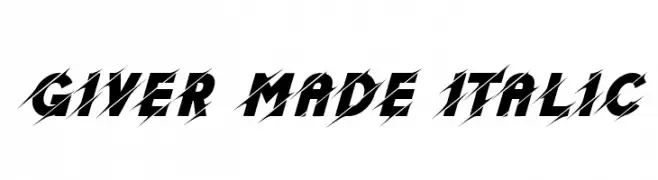
A playful, bubble-like font with a hand-drawn, 1980s-inspired style.
A modern, decorative font with elongated, narrow letterforms and a unique geometric style.
A bold, Gothic-inspired blackletter font with intricate details and a medieval aesthetic.
A bold and intricate Blackletter font with ornate, angular letterforms.
A playful, handwritten font with smooth curves and a casual style.
A playful, cartoonish font with bird-like characters and whimsical elements.
A whimsical, hand-drawn font with irregular, dynamic strokes.
A playful, handwritten-style font with a childlike, whimsical appearance.
A whimsical and artistic font with abstract, cartoon-like characters.
A classic serif font with elegant strokes and moderate contrast.
Ornamental dingbat font with vintage decorative motifs.
A bold, striped font with a playful and dynamic design.
A bold, angular font with sharp edges and a dynamic, aggressive style.
A tall, narrow, and modern font with a sleek and sophisticated style.
A bold, angular font with a strong slant, exuding energy and modernity.
A dynamic, handwritten font with expressive, fluid strokes.
A bold, italicized font with dynamic, slanted characters and a sense of motion.
A playful, handwritten font with bold, irregular strokes.
A bold, pixelated font with a retro digital aesthetic.
A bold, geometric font with a zigzag pattern and consistent thickness.
A playful, hand-drawn font with irregular, quirky letterforms.
A modern, geometric sans-serif font with a condensed width and uniform stroke.
A playful, hollow, hand-drawn font with bold outlines and artistic flair.